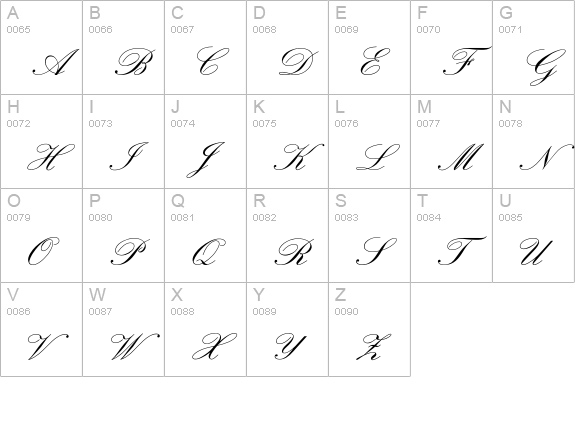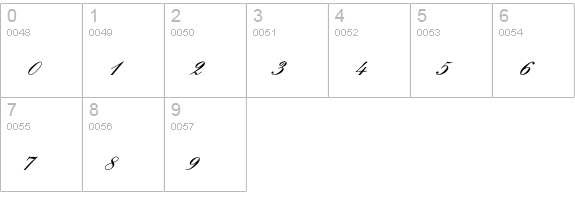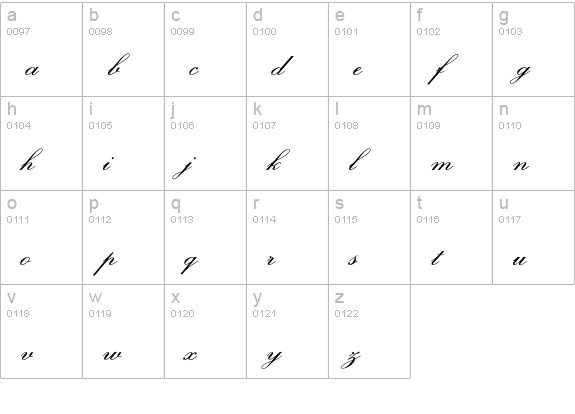
OPTIExcelsiorScript-SemiBd Font Details
The OPTIExcelsiorScript-SemiBd font is a beautifully crafted typeface that exudes elegance and sophistication. Its semi-bold weight adds a touch of boldness and presence to any design project. This font is perfect for creating eye-catching headlines, invitations, logos, and more. What makes this font even more appealing is that it is available for free download at FontsMarket.com. You can easily access this high-quality font and use it in your personal and commercial projects without any cost. Don't miss the opportunity to enhance your designs with the OPTIExcelsiorScript-SemiBd font's timeless style and versatility.